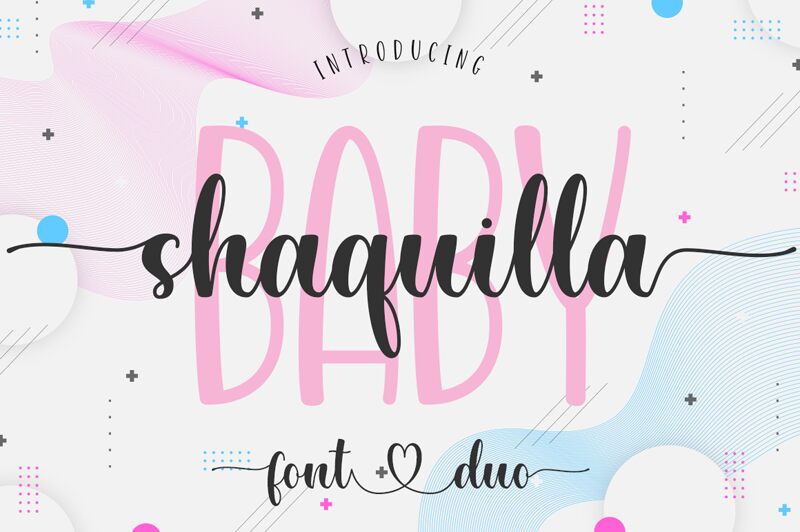
Baby
The Baby font by Fina Fadlilah is a light, narrow and handwritten typeface perfect for crafting unique, romantic designs. This font is ideal for creating wedding invitations, love letters or heartfelt cards.